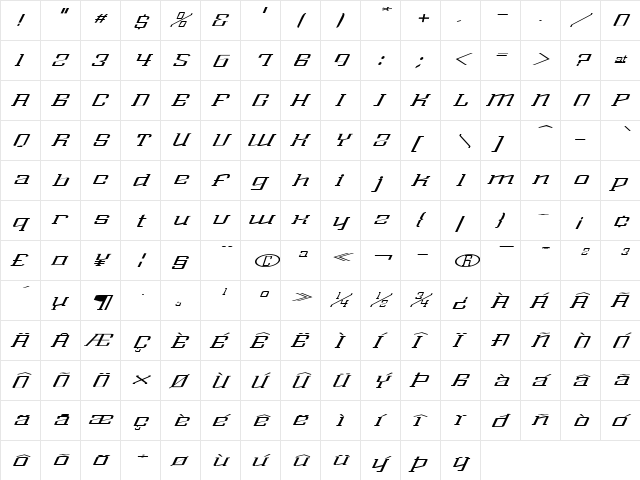
Alexander Light Italic Font Preview
Alexander Light Italic
Alexander Light Italic Font Details
| Style | Light Italic |
| Foundry | Alexander Light Oblique\ By Adam Roe Lunchbox Design, |
Design Context for Alexander Typeface
Alexander offers clean, dependable letterforms without strong stylistic allegiance, making it a practical choice for designers who need flexibility. The slanted form adds forward momentum and visual energy. The delicate stroke weight brings airiness and refinement to layouts.